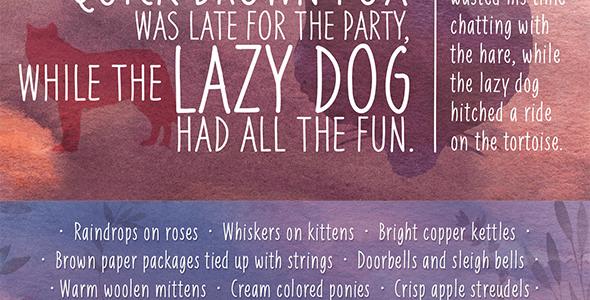
Liniga Typeface
A tall, warm and friendly handwritten typeface with a simple structure and low contrast. Works well for both display and body text. Download file contain both TTF and OTF files. Character Set includes A-Z(upper and lower case), Numerals, Punctuations and Accents (Multilingual characters).